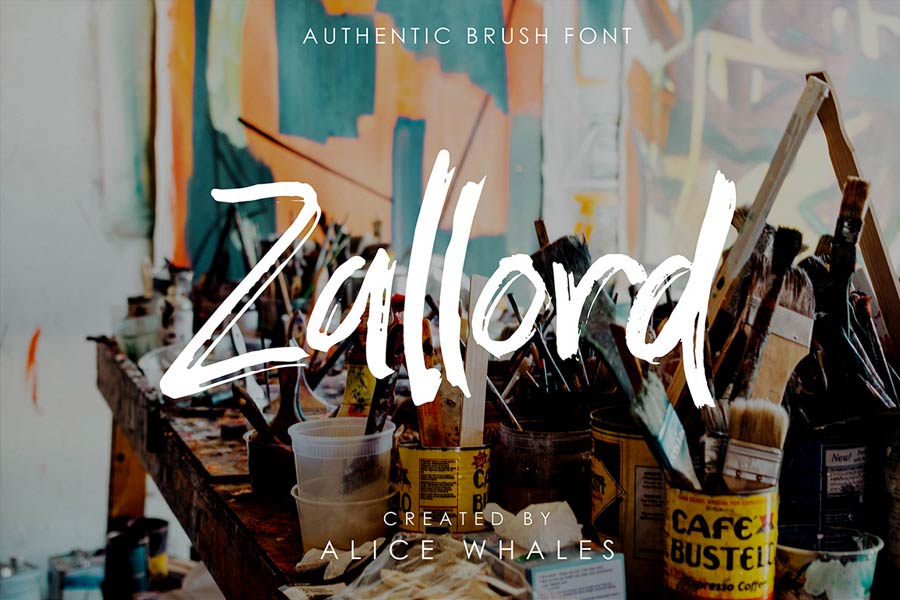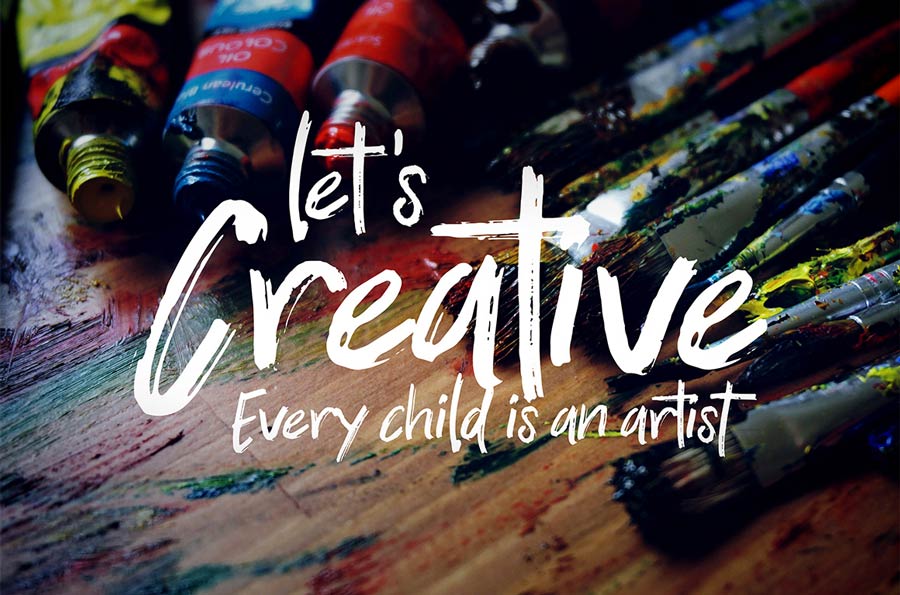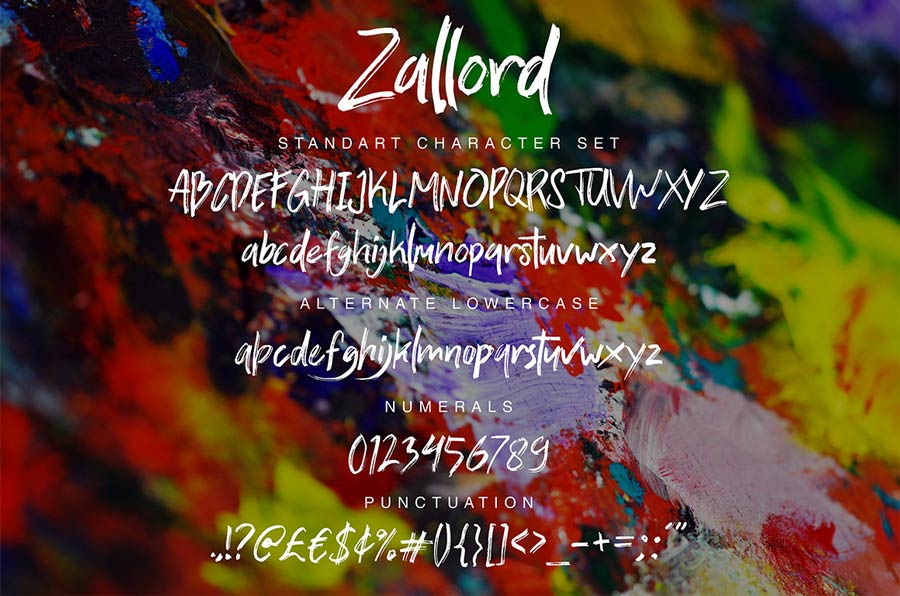
Zallord is a free hand drawn brush font with aggressive stroke style. It’s a highly artsy, raw brush stroke style that will remind us that we all are art creators and should go crazy with ideas and not limiting ourselves.
It comes with the standard alphanumerics and punctuations, and you can download and use it for both personal and commercial works.